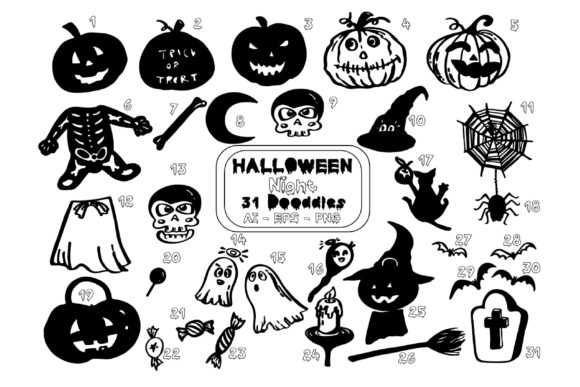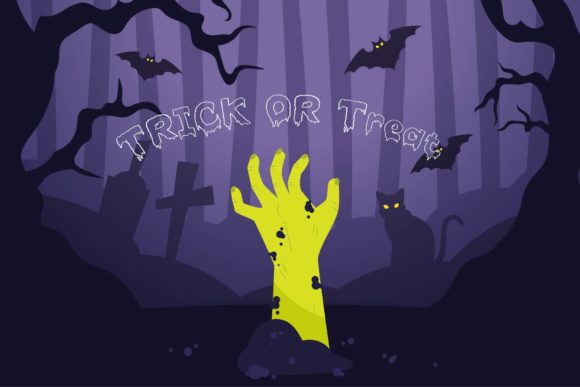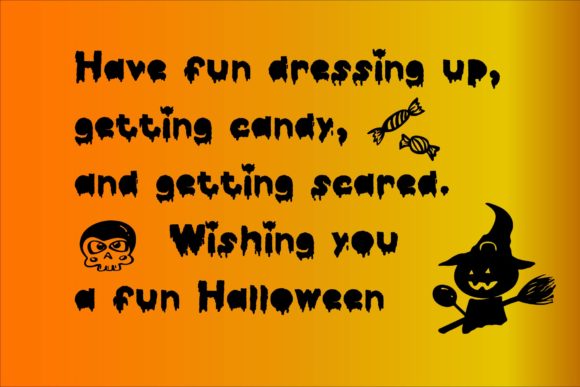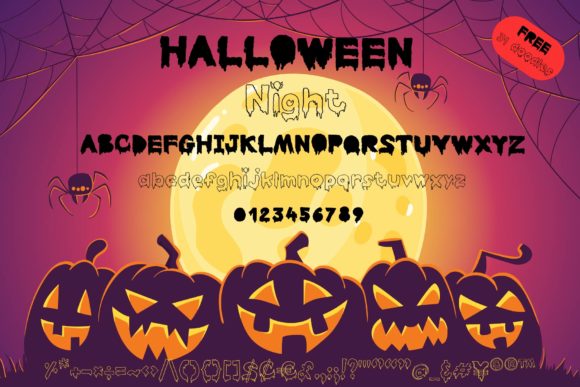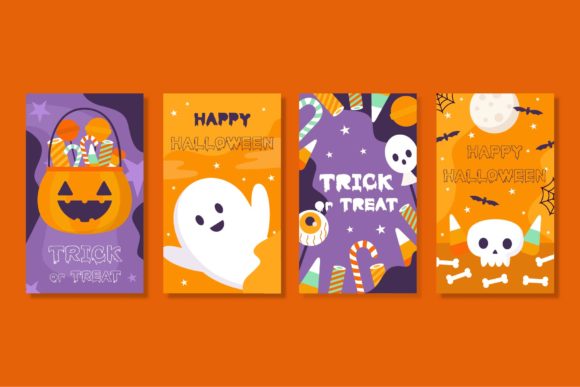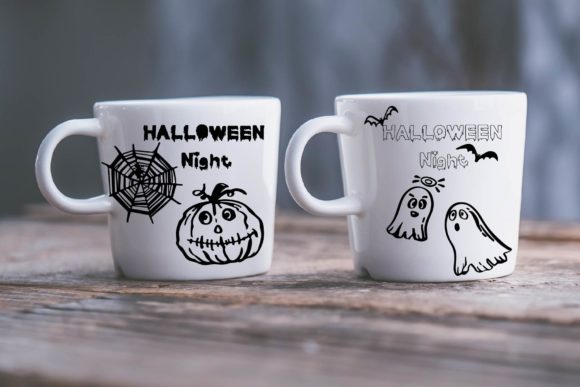
Unlock the Magic of Halloween Night Font
As a designer, there’s nothing quite like the thrill of bringing a creative idea to life. You’re brainstorming concepts, experimenting with colors, and trying to find that perfect font to tie everything together. And then, just as the clock strikes midnight, it hits you – the perfect font to make your design stand out from the crowd.
Enter Halloween Night Font, a stylish and unique decorative font that’s guaranteed to cast a spell on your audience. Whether you’re creating posters, thank you cards, quotes, or logos, Halloween Night Font is the perfect addition to give your design a creative touch. With its versatility and charm, it’s a valuable asset for any designer looking to elevate their work and make a lasting impression.
Halloween Night Font Key Features
- Font Family: Halloween Night is a unique, hand-drawn font designed to evoke a spooky atmosphere, perfect for Halloween-themed designs.
- Size: The font comes in a single weight, making it ideal for creating a cohesive and unified visual identity.
- Characters and Glyphs: The font includes a wide range of characters, including Latin, Cyrillic, and Greek alphabets, as well as various symbols and punctuation marks.
- Unique Characteristics: Halloween Night features intricate, hand-drawn designs and subtle texture, giving it a one-of-a-kind look that’s perfect for adding a touch of eeriness to your designs.
Halloween Night Font Review
I recently had the chance to work with the Halloween Night Font, and I have to say it’s a unique and interesting addition to any spooky-themed design. ✨ Here are a few things that stood out to me:
- Expressive and eerie feel, perfect for Halloween-themed designs.
- Wide range of glyphs, including international characters and punctuation marks.
- Supports both Latin and Cyrillic scripts.
- Available in a variety of weights, from light to bold.
- The font is a bit too over-the-top for more subtle Halloween designs.
- Lack of italic and bold italic styles, which can be a problem for certain design applications.
- Not all weights are equally well-suited for body text.
Overall, I think the Halloween Night Font is a great choice for designs that want to make a bold statement. While it may not be suitable for every project, it’s definitely worth considering for the right kind of design. Just be aware of its limitations and use it judiciously.
The Halloween Night Font is perfect for creating spooky invitations, posters, and social media graphics. You can also use it to create custom graphics for Halloween-themed websites, blogs, or online stores. With its eerie and mysterious vibe, the Halloween Night Font is sure to add a touch of spookiness to any design project.